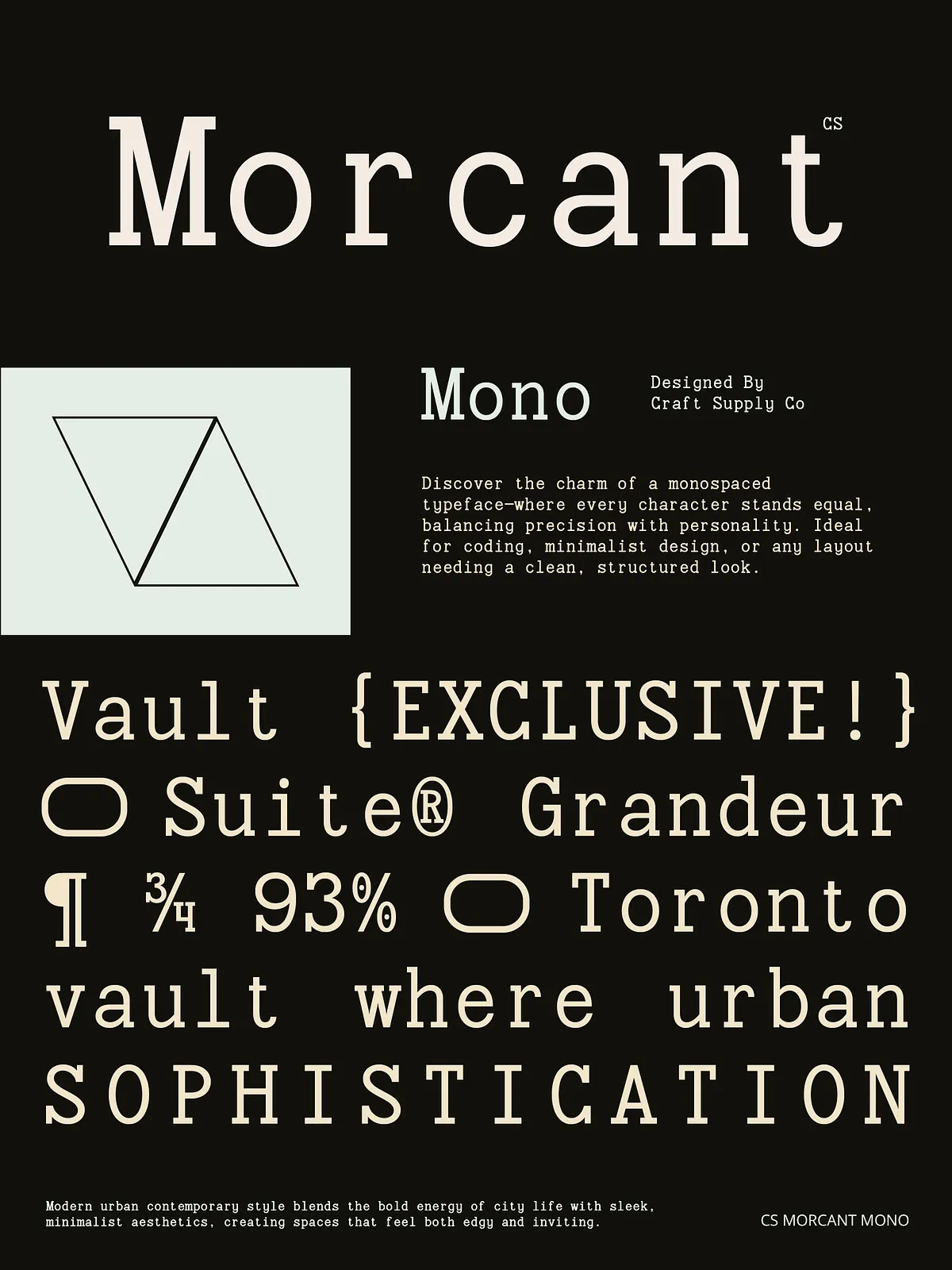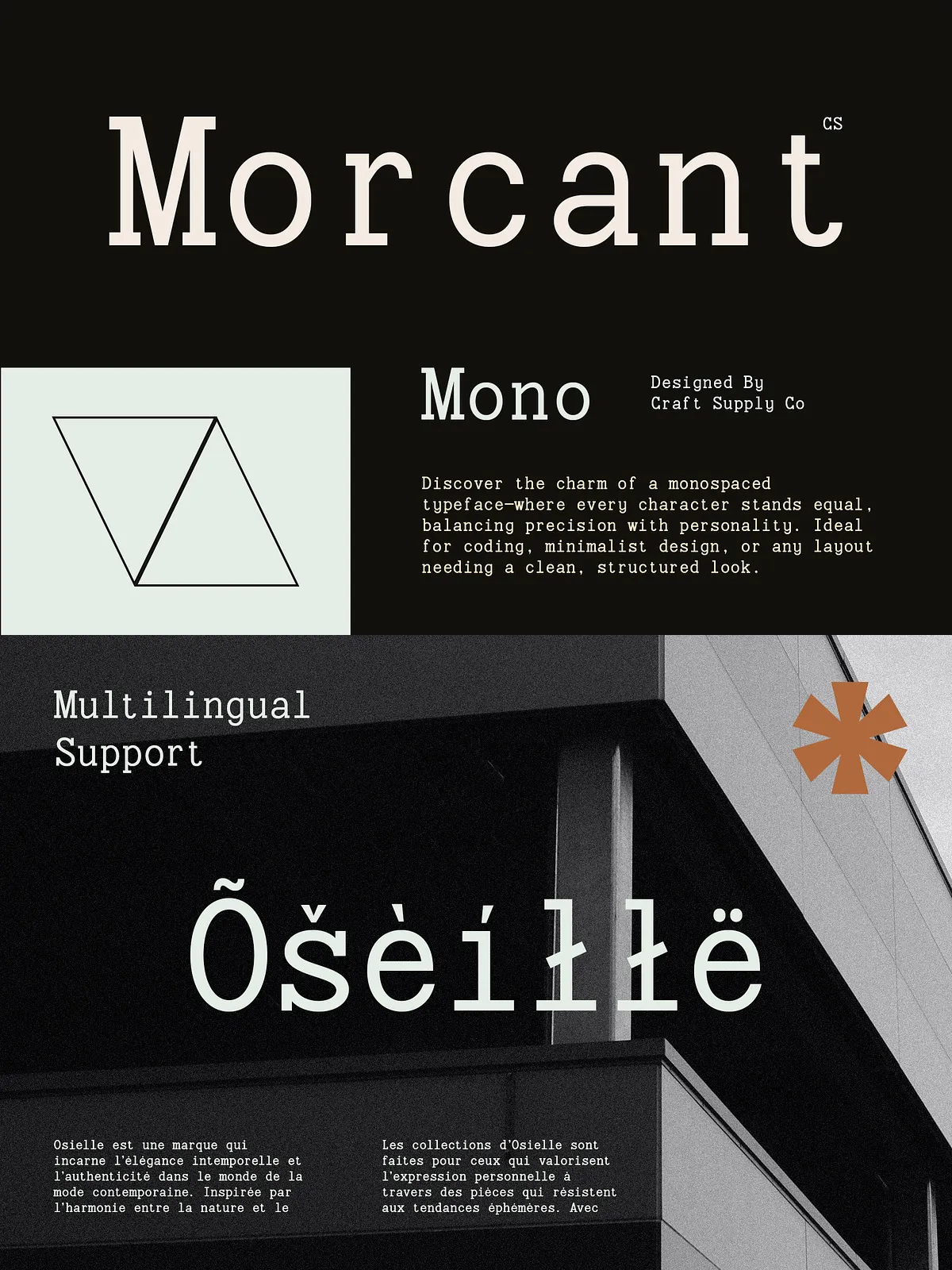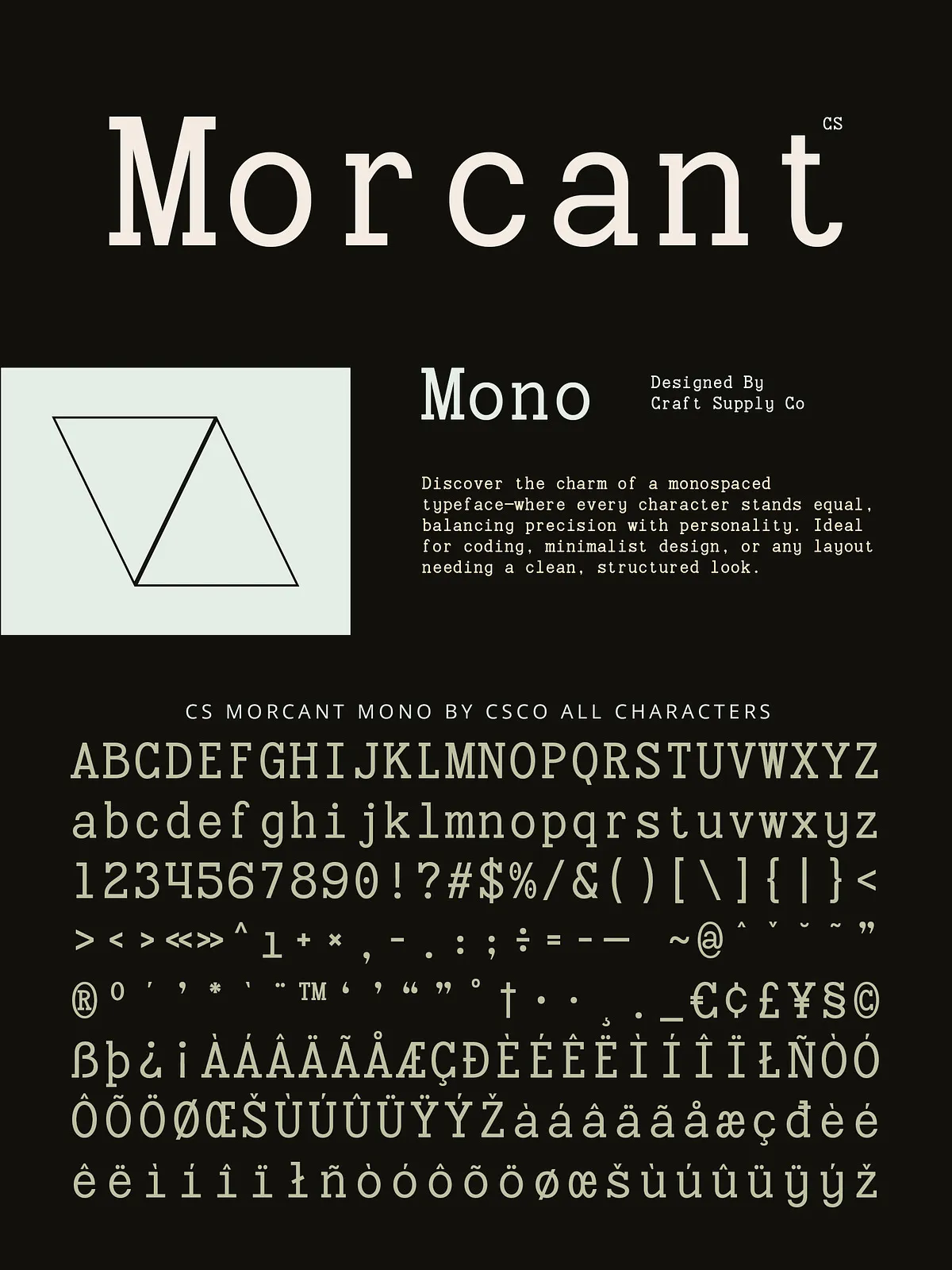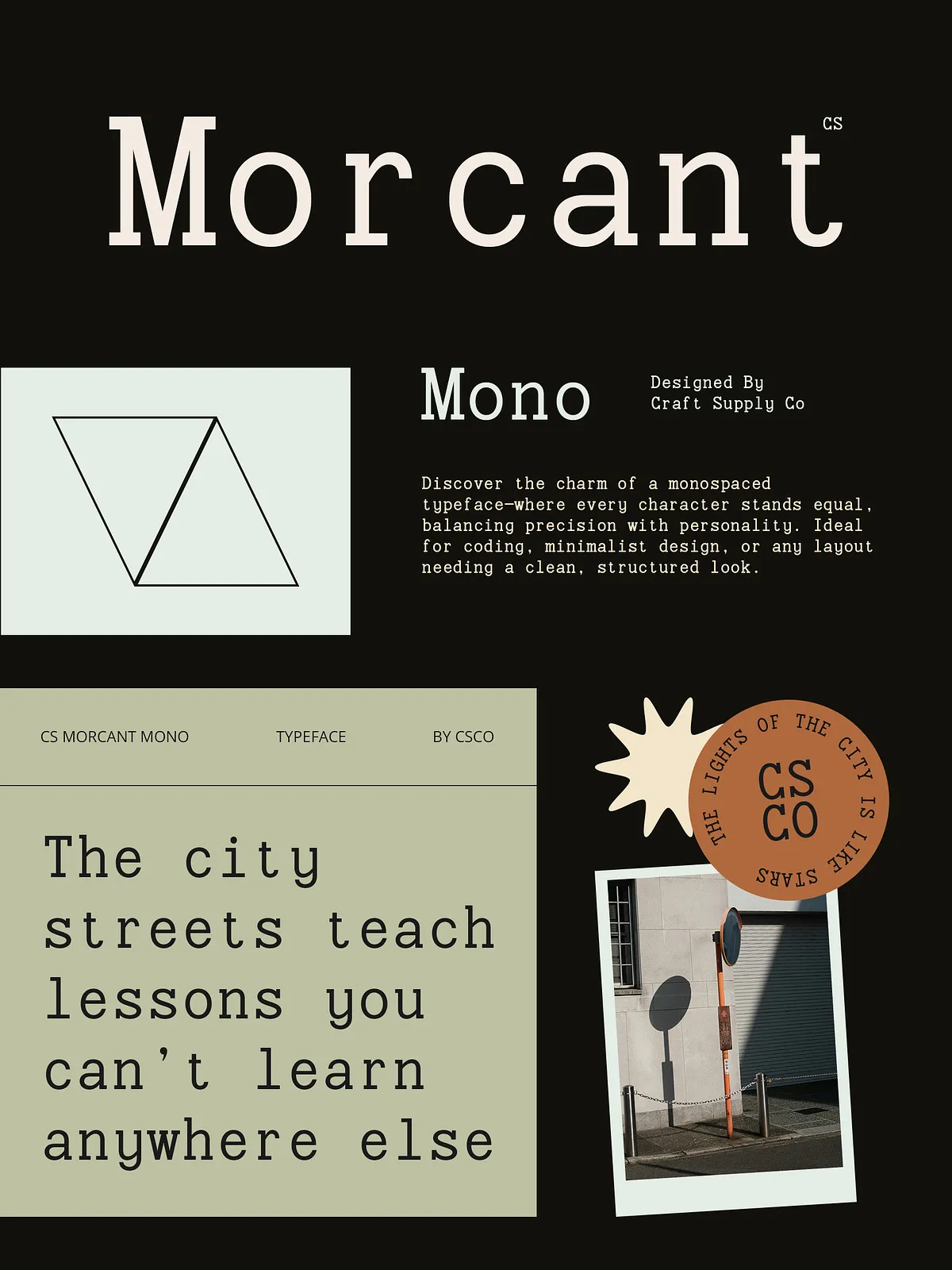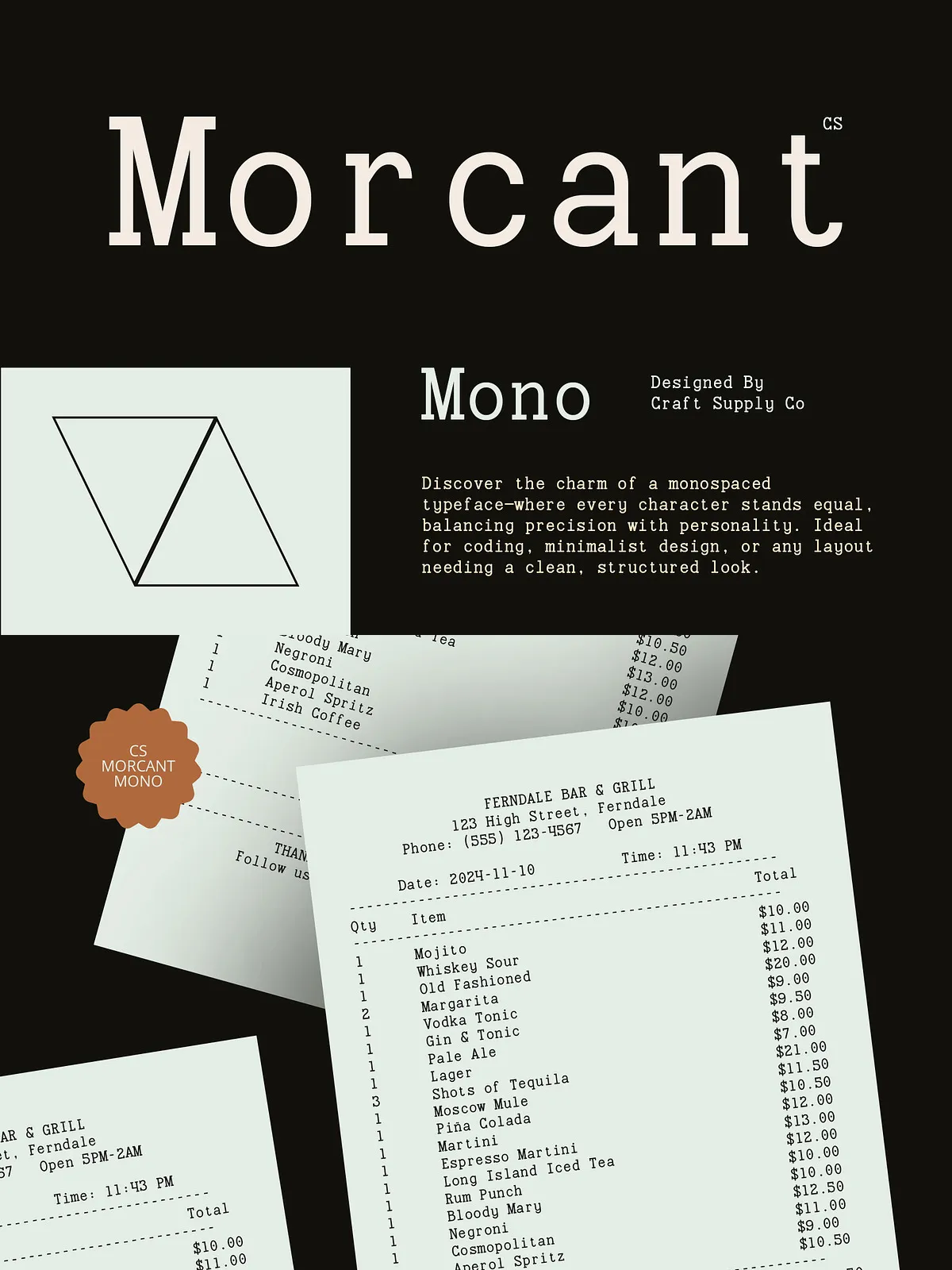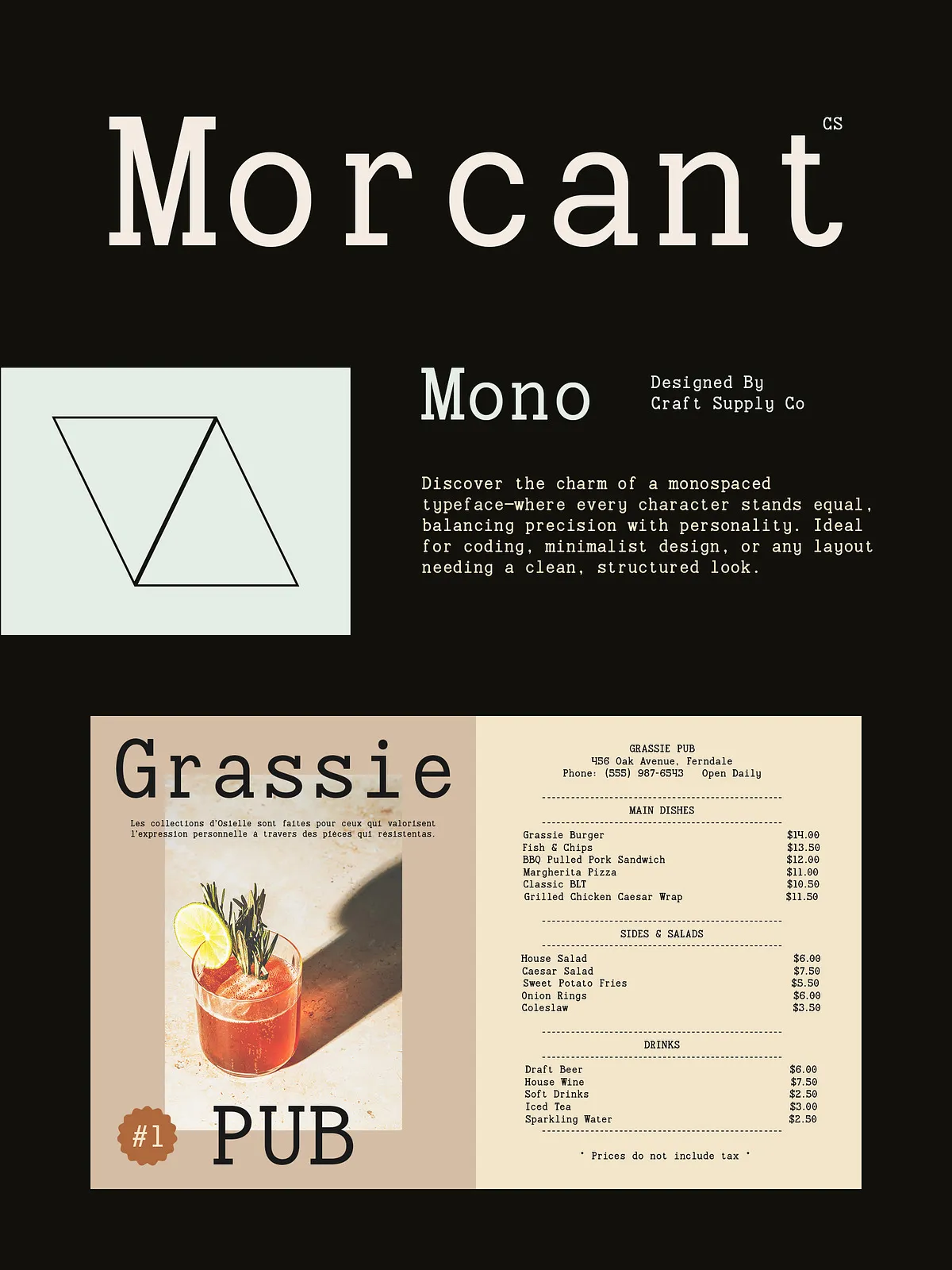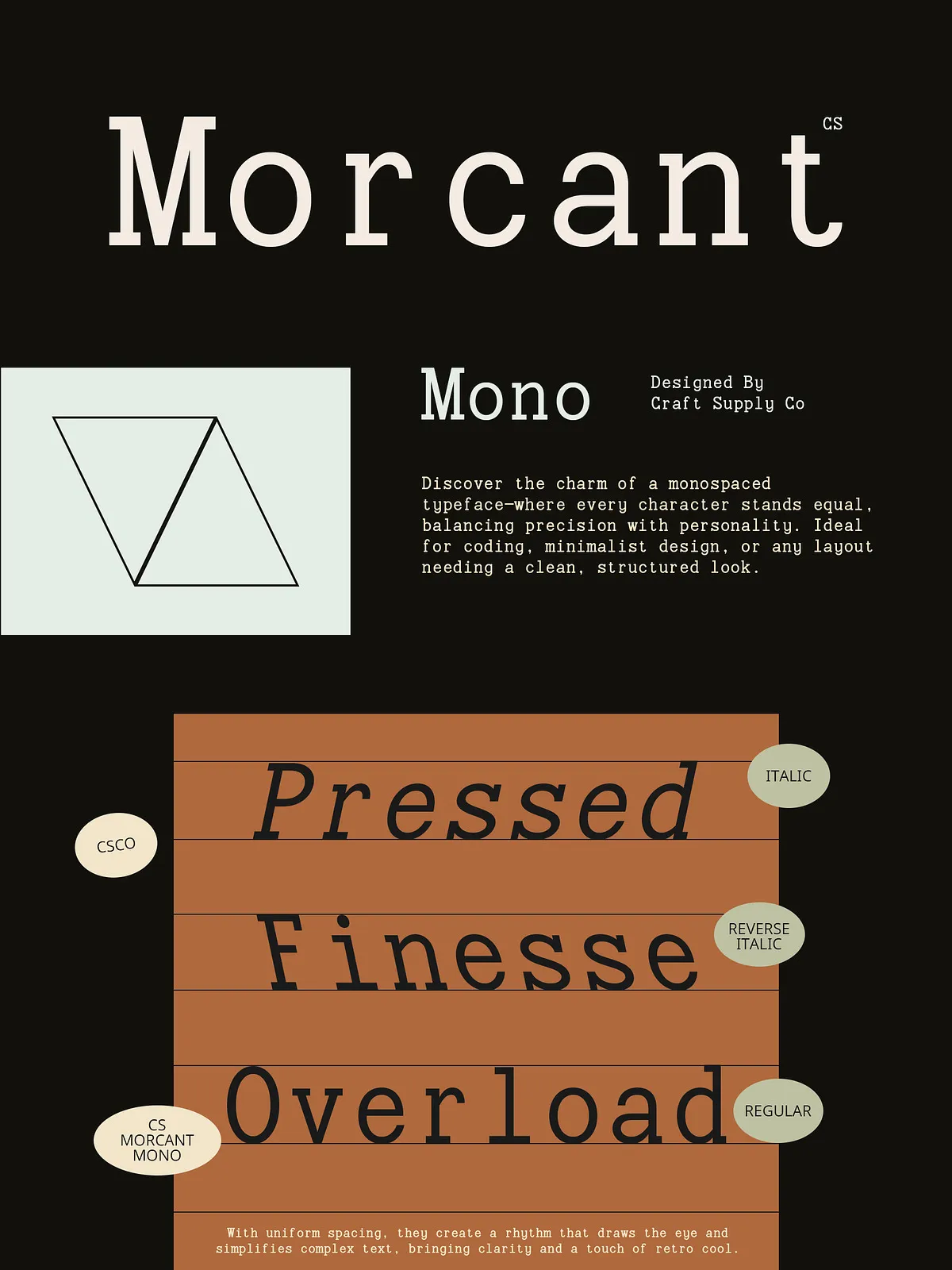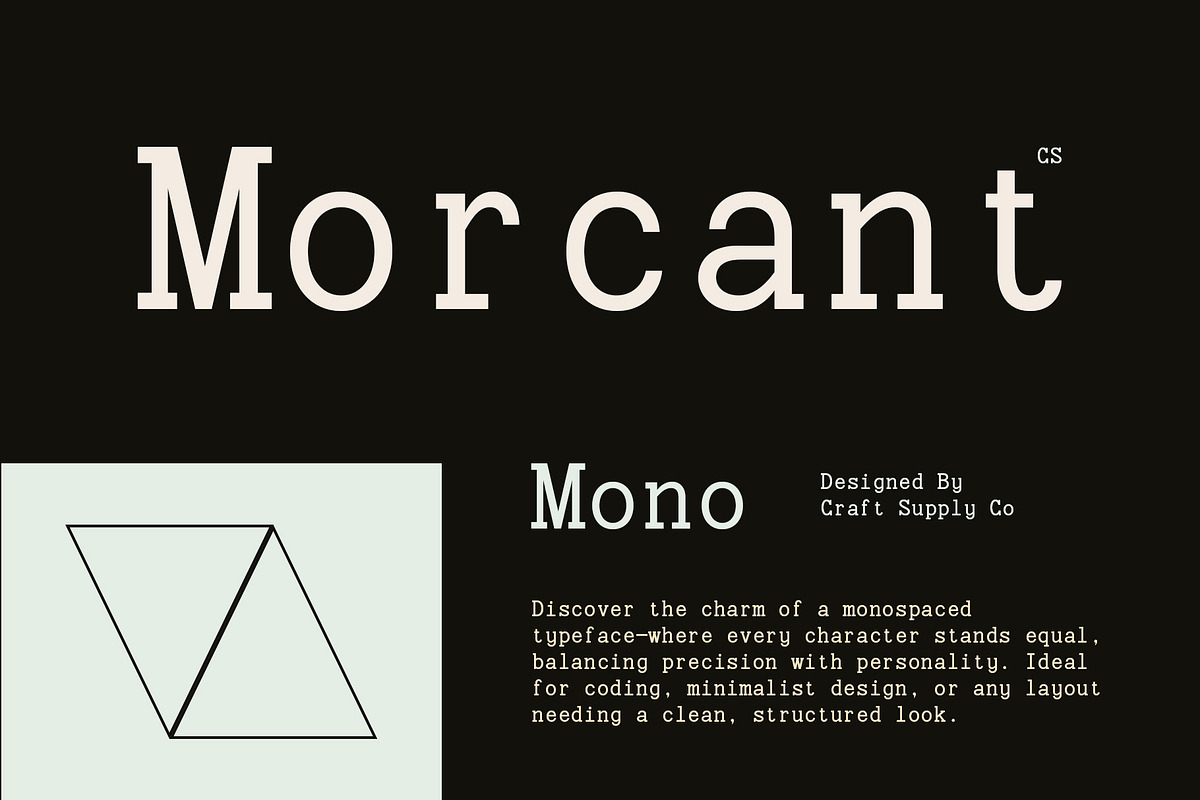
Introducing CS Morcant Mono, a bold new chapter in monospaced typography that redefines what technical fonts can be. This isn’t just another monospaced face—it’s a thoughtfully crafted fusion of precision and refinement. With its consistent character width and elevated serif detailing, CS Morcant Mono delivers unmatched readability in high-stakes environments while adding a layer of sophisticated visual appeal to any layout.
Whether you’re writing code, compiling technical documentation, or designing a sleek editorial spread, this font ensures that every letter occupies its space with purpose—and style.
Monospaced Structure, Refined Serifs: A Perfect Balance
The foundation of CS Morcant Mono lies in its rigorous monospaced geometry. Every character—regardless of width—takes up the same horizontal space. This uniformity is critical in programming, terminal displays, and tabular text, where alignment and rhythm matter.
But what sets CS Morcant Mono apart is how it elevates this structure with elegant serif detailing. The subtle weight shifts, delicate stroke endings, and refined curves bring a modern sophistication that prevents the font from feeling cold or mechanical. It’s technical without being sterile, structured without being rigid.
Designed for Real-World Workflow Demands
Engineered for maximum legibility at small sizes, CS Morcant Mono excels in low-contrast environments, long-form reading, and dense content layouts. Its clean contrast between thick and thin strokes reduces eye strain, while the generous x-height ensures clarity even in reduced formats.
Perfect for:
- Code editors, IDEs, and terminal UIs
- Technical writing and documentation platforms
- Journalism, feature articles, and design briefs
- Minimalist brand identities and high-end publications
Powerful Feature Set for Professional Use
CS Morcant Mono comes packed with features that go beyond basic typography. Built for modern design systems and workflows, it delivers both elegance and functionality.
What’s Included:
- CS Morcant Mono Regular – The cornerstone of the family, ideal for clean, readable layouts.
- CS Morcant Mono Italic – Adds emphasis and visual texture with a refined hand-sketched slant.
- CS Morcant Mono Reverse Italic – A bold twist with mirrored stroke direction, perfect for high-contrast headlines.
Advanced OpenType Features:
- Uppercase and lowercase characters – Fully functional and stylistically consistent.
- Standard numerals and punctuation – OpenType standard features ensure reliable formatting across platforms.
- Accented characters – Full multilingual support for languages including French, German, Spanish, Portuguese, Finnish, and more.
- PUA (Private Use Area) encoding – Access to extra glyphs and stylistic alternates through custom mapping in design software.
Built for Multilingual, Global Content
CS Morcant Mono isn’t just beautiful—it’s globally ready. With extensive OpenType support, it renders seamlessly in over 40 languages that use Latin-based scripts.
From Norwegian to Polish, from Catalan to Hungarian, the font maintains typographic integrity, ensuring professional results no matter your audience.
More Than a Font — A Design Philosophy
CS Morcant Mono isn’t just about consistency. It’s about intentional design. It’s for developers who want their code to look like art. For editors who believe clarity can be beautiful. For designers who demand professionalism without sacrificing style.
It’s for the people who know that every detail matters.